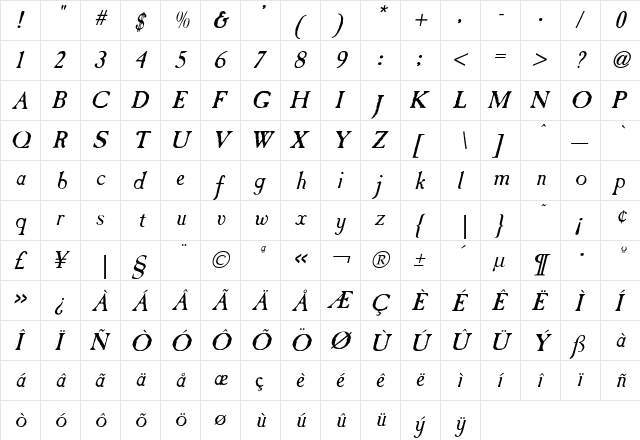
CasablancaAntique Italic
Design Context for CasablancaAntique Typeface
CasablancaAntique wears its vintage influences proudly, with letterforms that recall mid-century signage, classic packaging, and nostalgia-driven design. The dynamic lean of this cut emphasises speed and emphasis in any layout.
Font Pairing: Combine CasablancaAntique with a simple slab or neutral sans — period-accurate companions reinforce the vintage feel without competing for attention.
Pro Tip: Use CasablancaAntique for headlines and pull quotes rather than body copy — its personality is best appreciated in short, focused bursts.